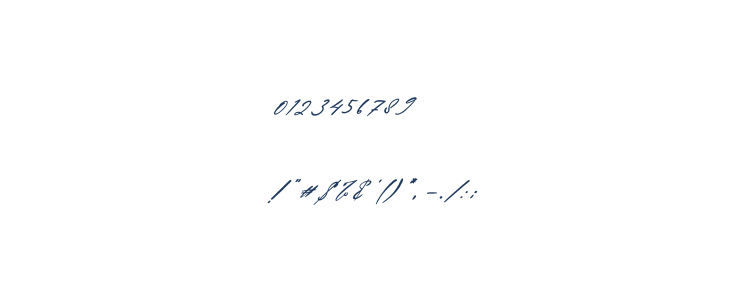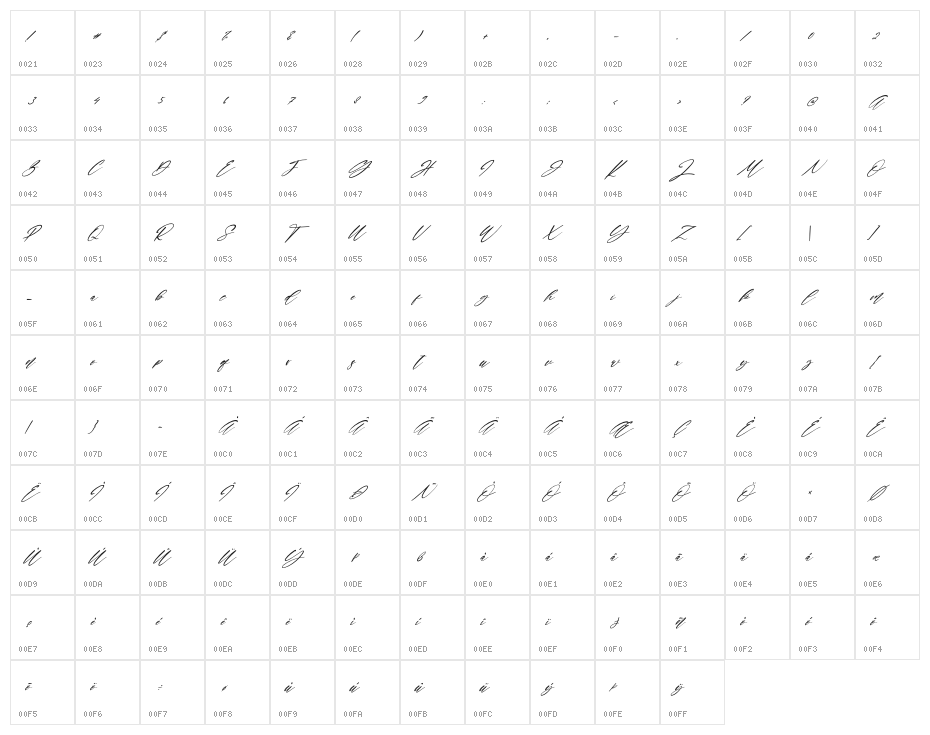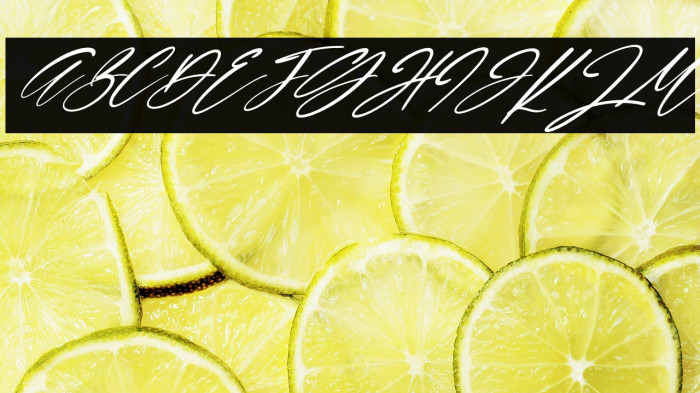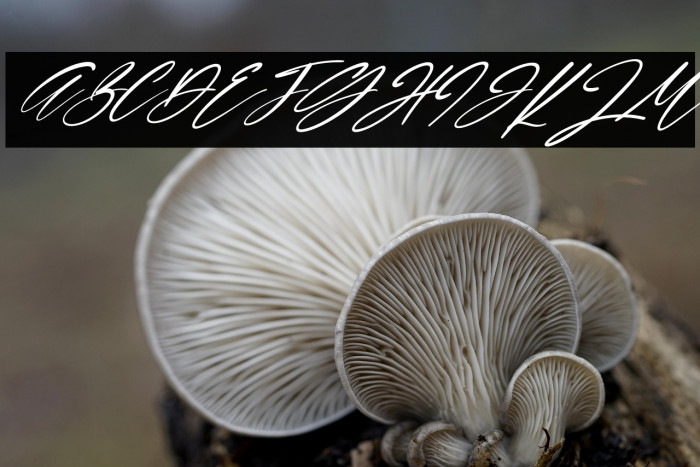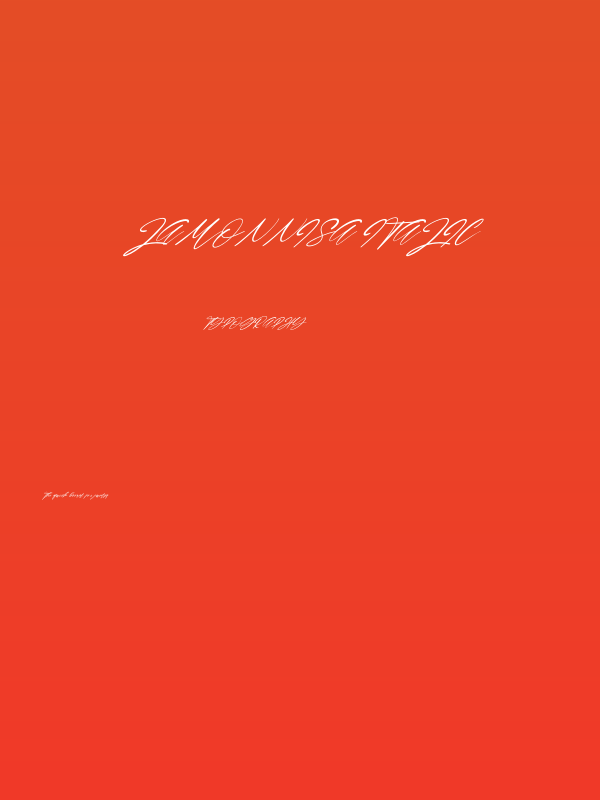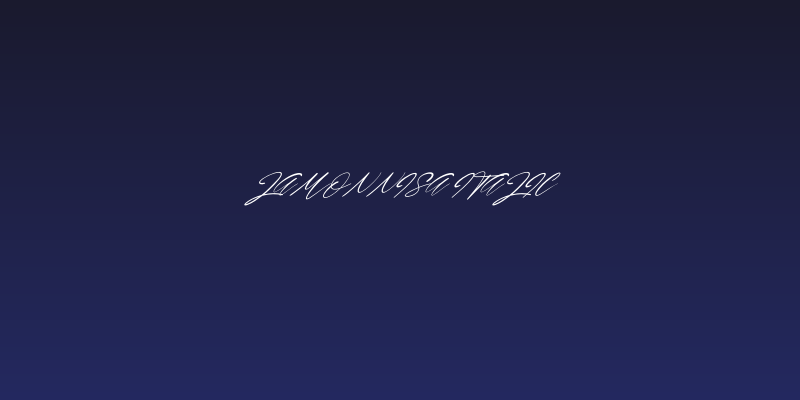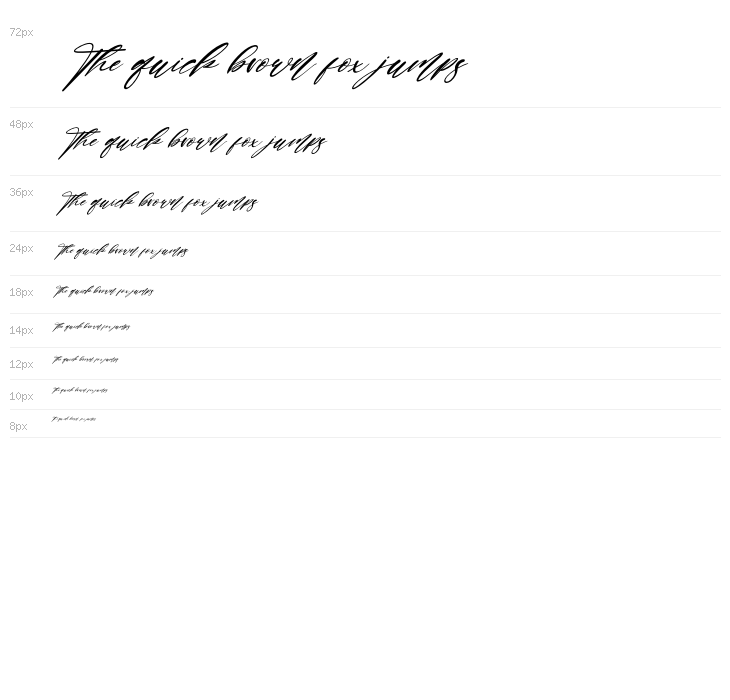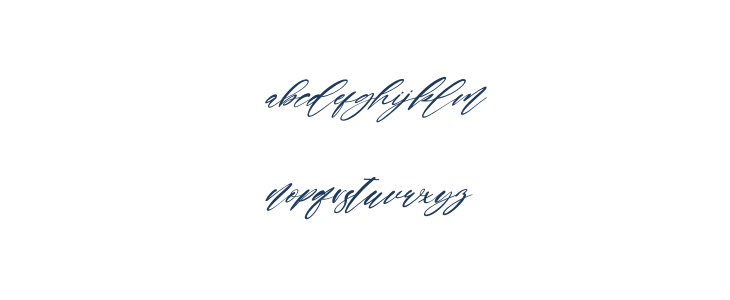
Lamonnisa Italic Font
Lamonnisa Italic Description
This elegant script font features a flowing, cursive style with a distinct italic slant, giving it a sophisticated and graceful appearance. The letters are connected in a fluid manner, creating a seamless and continuous look. The strokes are smooth and slightly varied in thickness, adding a touch of dynamism and elegance. The uppercase letters are bold and prominent, while the lowercase letters maintain a delicate and refined quality. This font exudes a sense of luxury and refinement, making it ideal for formal invitations, branding, and decorative purposes.
| Use Case | Invitations, Branding, Decorative |
| Proposed Projects | Ideal for wedding invitations, luxury branding, elegant logos, and decorative headings. |